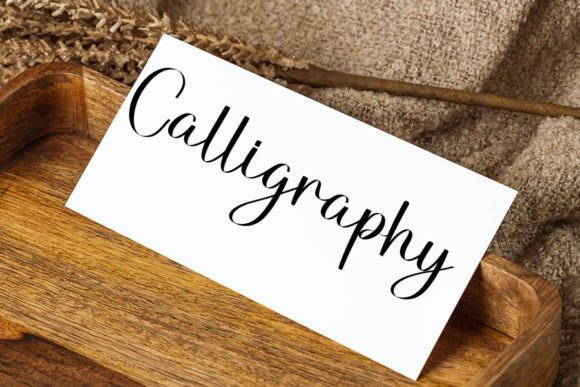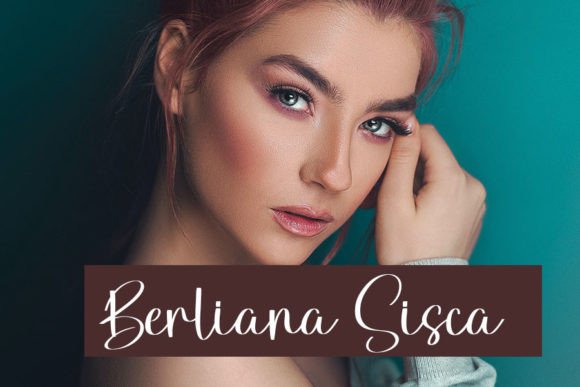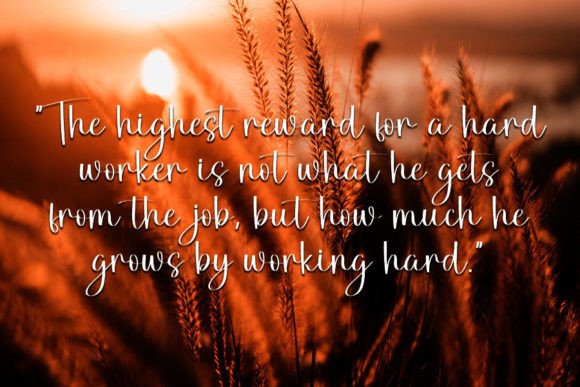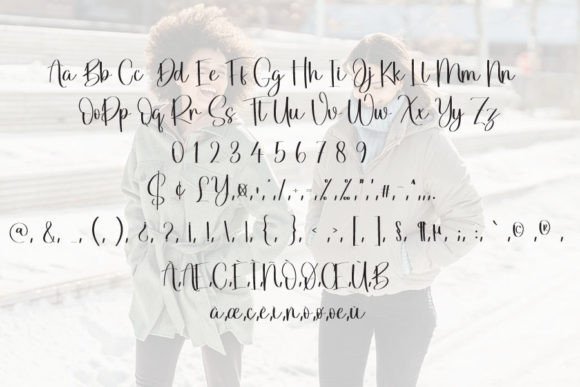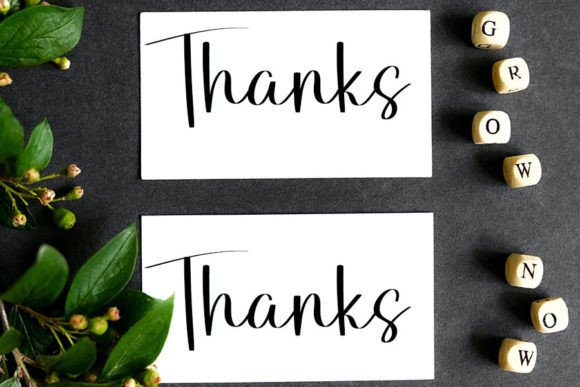
Discover the Charm of Bestie Font: Elevate Your Designs with a Simple Handwritten Touch
Are you on the hunt for a font that adds a personal touch to your designs without overwhelming them? Look no further than the Bestie Font. This delightful, simple handwritten font is making waves in the design community for its versatility and natural charm. Whether you’re crafting greeting cards, working on headlines, or brainstorming ideas for your next big project, Bestie Font is your go-to choice for injecting a dose of simplicity and elegance.
The Allure of Bestie Font
Bestie Font stands out in a sea of digital typefaces for its distinctly handwritten feel. It’s a font that speaks directly to the heart, evoking a sense of warmth and friendliness that’s hard to achieve with more formal typefaces. The beauty of Bestie lies in its simplicity; it’s a font that doesn’t shout for attention but instead whispers sweet nothings that draw your audience in. This subtle charm makes it perfect for a wide range of applications, from the intimate settings of handmade crafts to the bold statements of professional advertising.
One of the most significant advantages of Bestie Font is its incredible versatility. This font isn’t limited to just one or two specific uses; rather, it can be seamlessly integrated into a myriad of projects. Imagine crafting a greeting card that feels like a warm hug, or creating a headline that captures the essence of a summer breeze. Bestie Font makes these scenarios a reality, offering a unique blend of approachability and sophistication that’s hard to find elsewhere.
Applications of Bestie Font
- Greeting Cards and Invitations: Add a personal touch to your cards and invitations, making each one feel like a handwritten note.
- Headlines and Titles: Stand out with headlines that have a friendly, approachable vibe without sacrificing professionalism.
- Branding and Logos: Give your brand a personality that resonates with your audience, making your business feel more relatable and human.
- Crafting and DIY Projects: Elevate your handmade crafts, journals, and DIY projects with a font that feels like it was written with love.
Why Designers and Crafters Love Bestie Font
Designers and crafters alike are drawn to Bestie Font for its unique ability to add a layer of warmth and personality to any project. It’s a font that understands the importance of subtlety and nuance, allowing your work to speak for itself without overpowering it. Moreover, its simplicity makes it incredibly easy to pair with other fonts, giving you endless possibilities for creative experimentation.
In a world where digital designs can often feel cold and impersonal, Bestie Font offers a refreshing alternative. Its simple, handwritten charm has the power to elevate your projects, making them feel more personal, more relatable, and more engaging. Whether you’re a designer looking for a versatile font to add to your arsenal or a crafter seeking to add a personal touch to your creations, Bestie Font is an excellent choice. So why wait? Discover the charm of Bestie Font today and watch as your designs transform with the warmth and elegance of a handwritten touch.